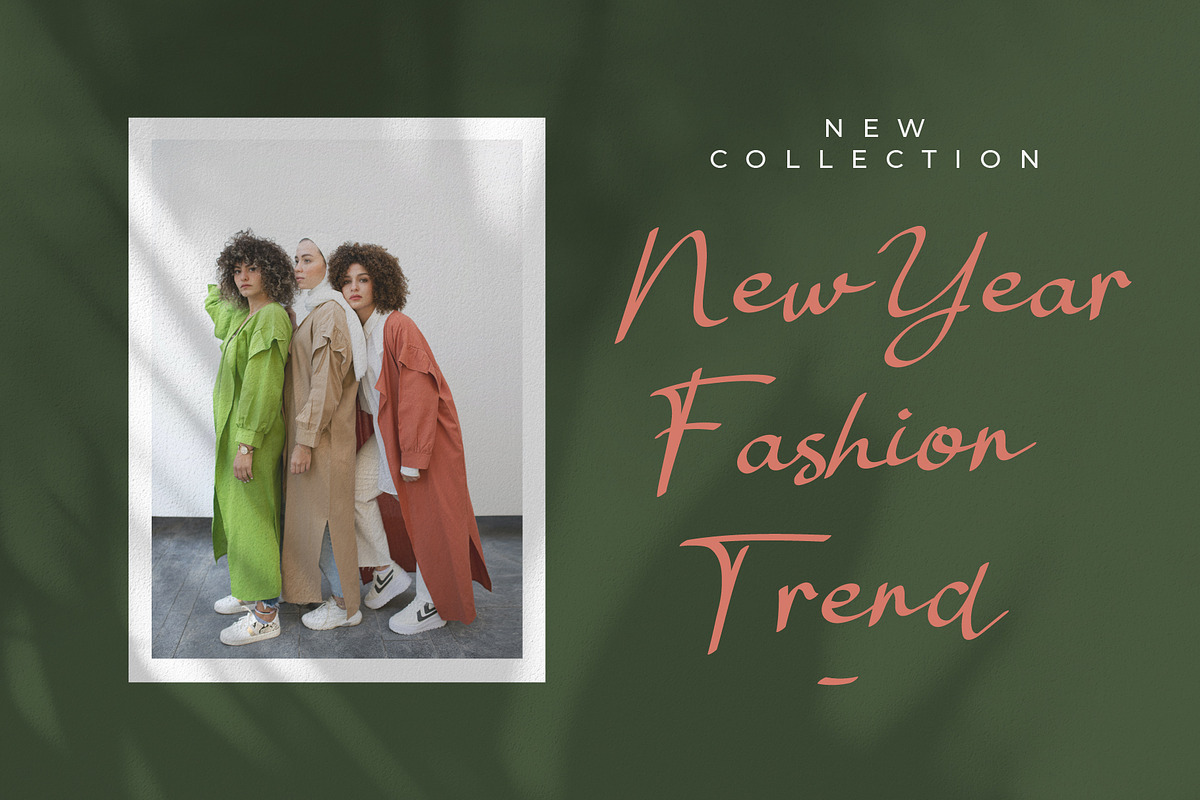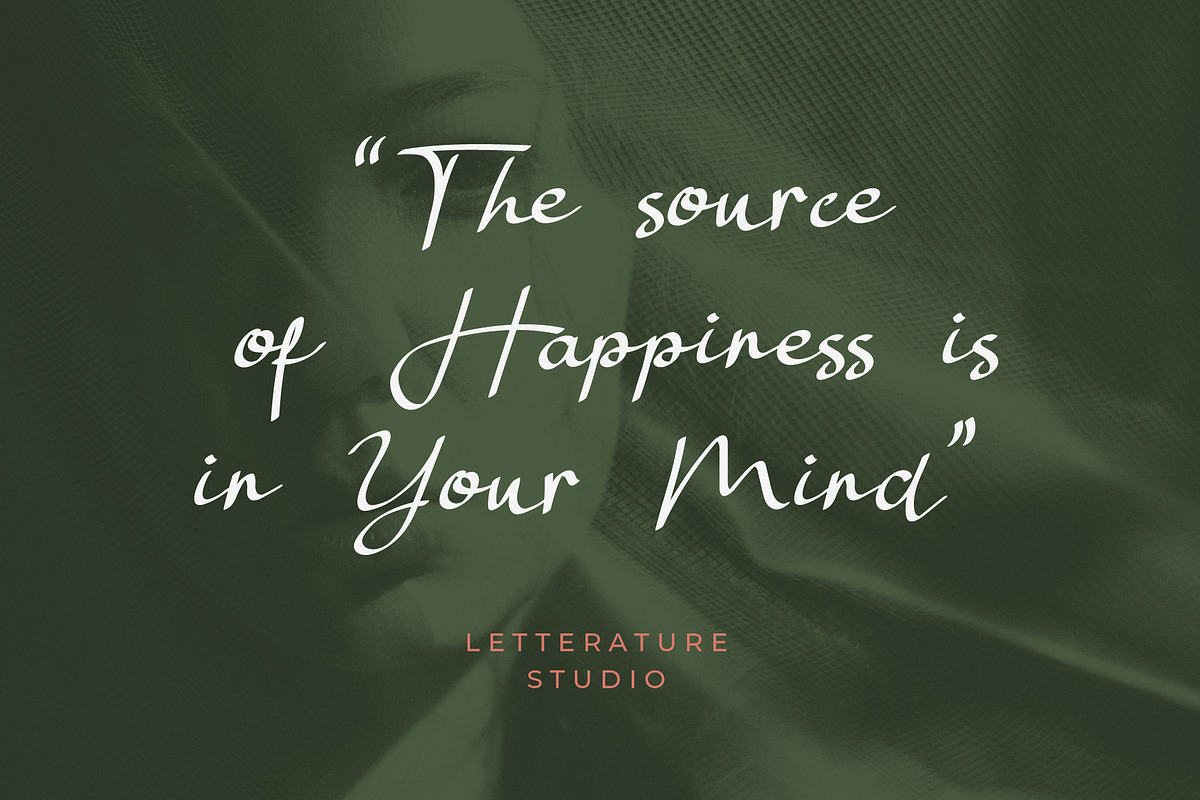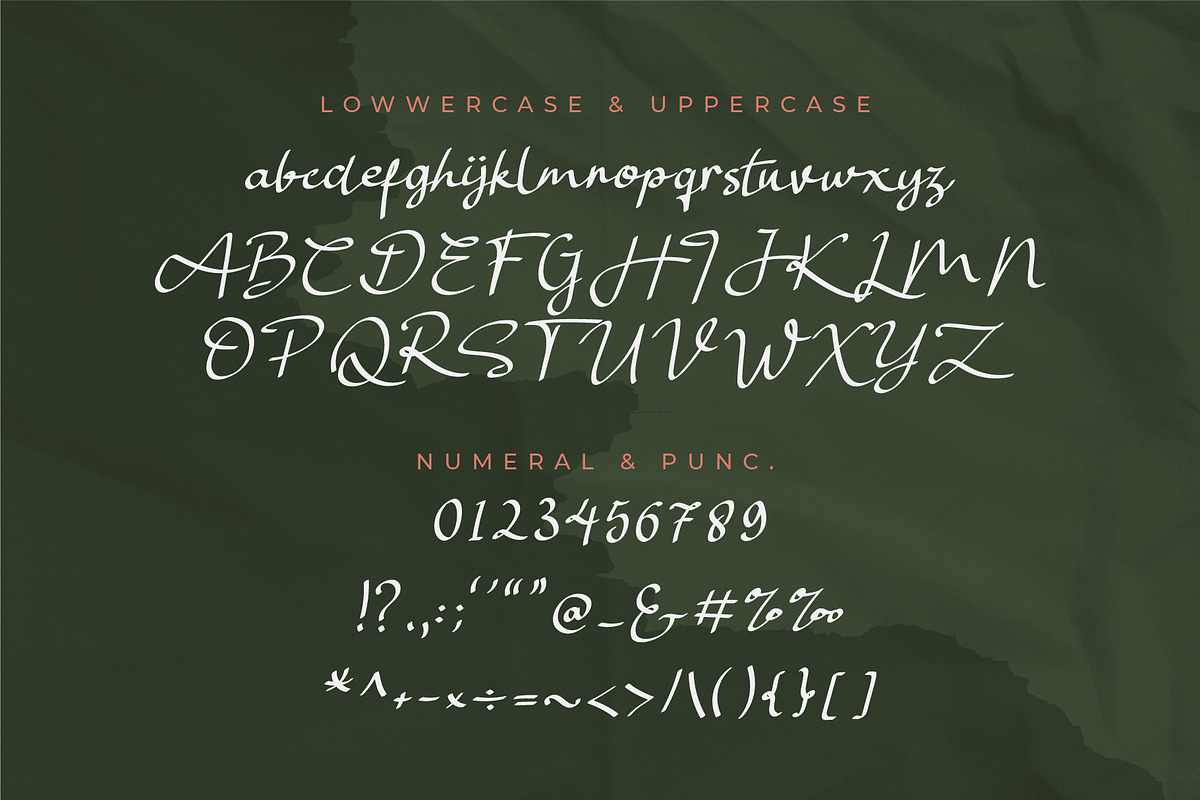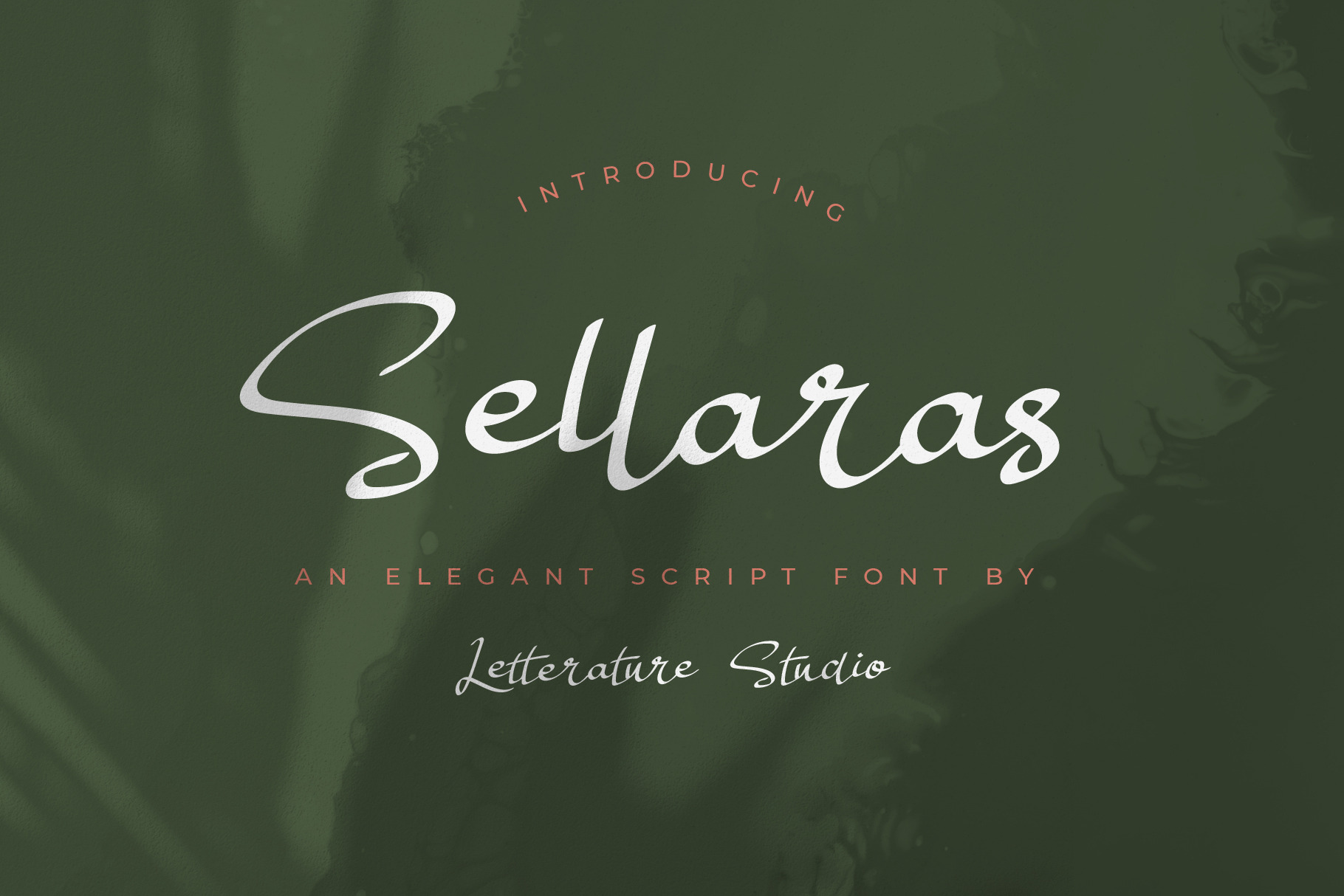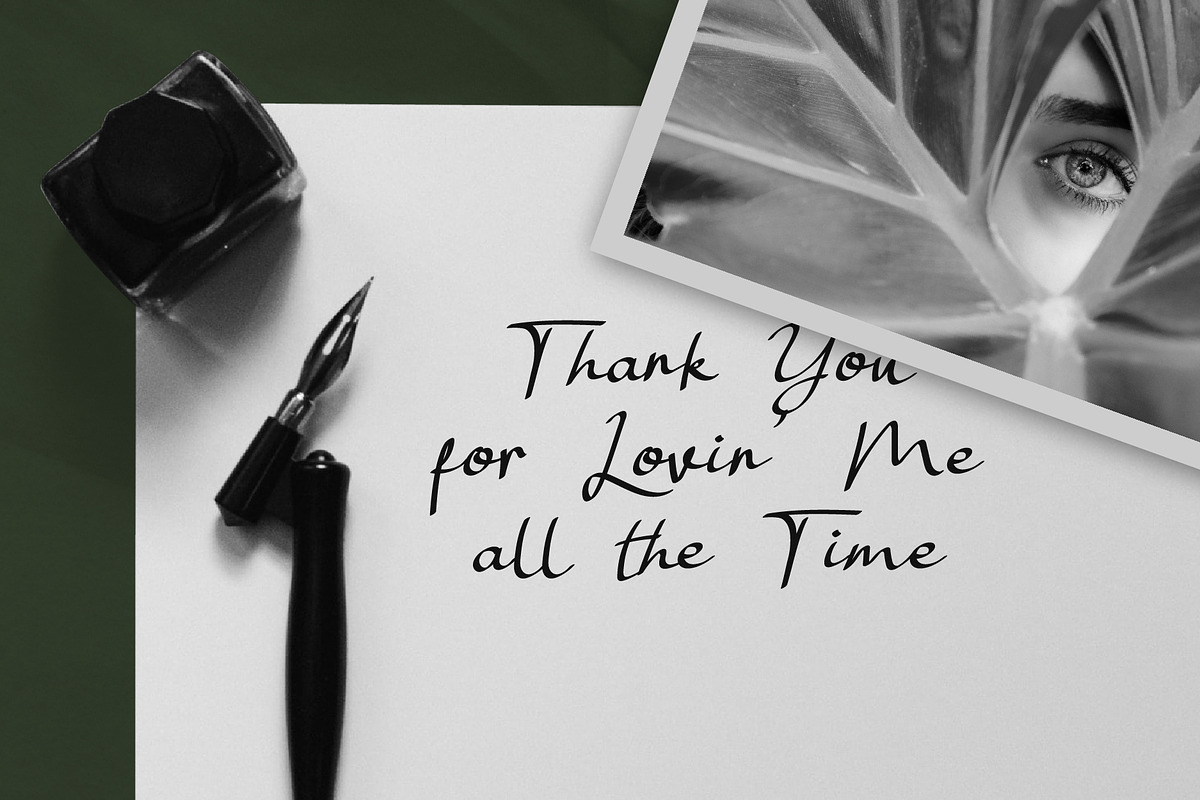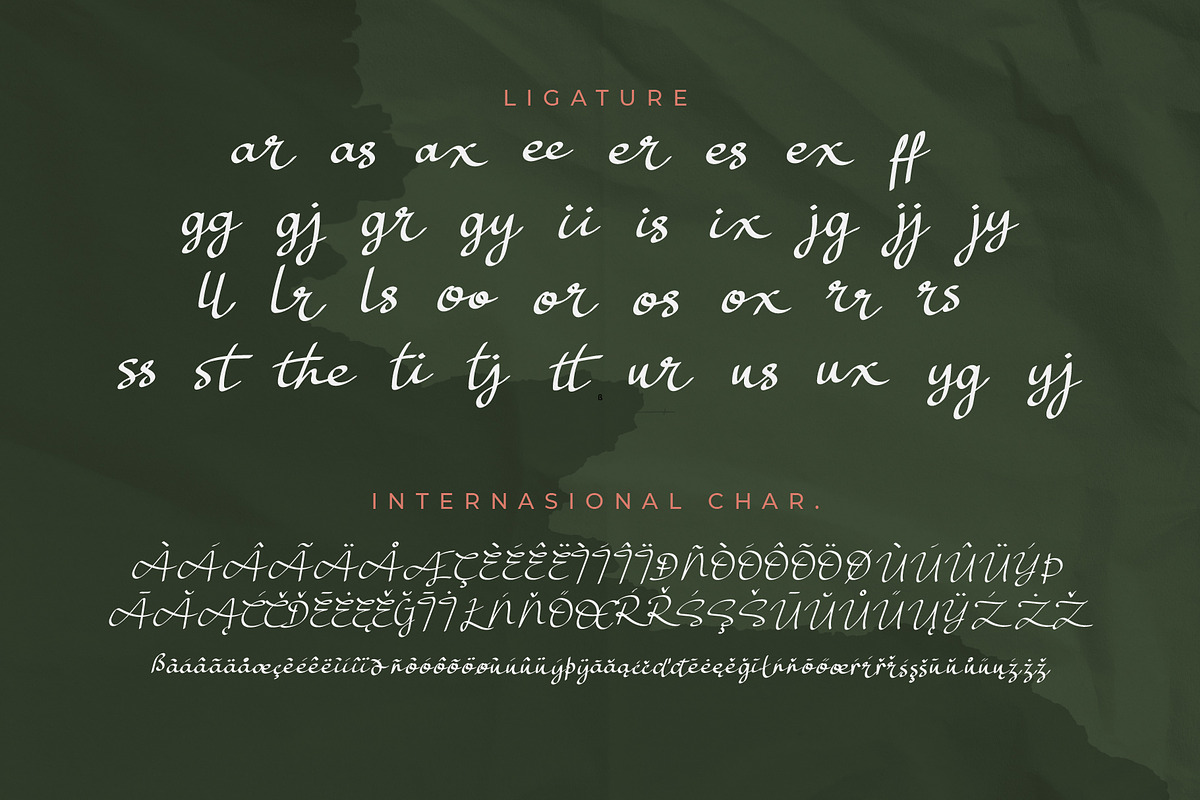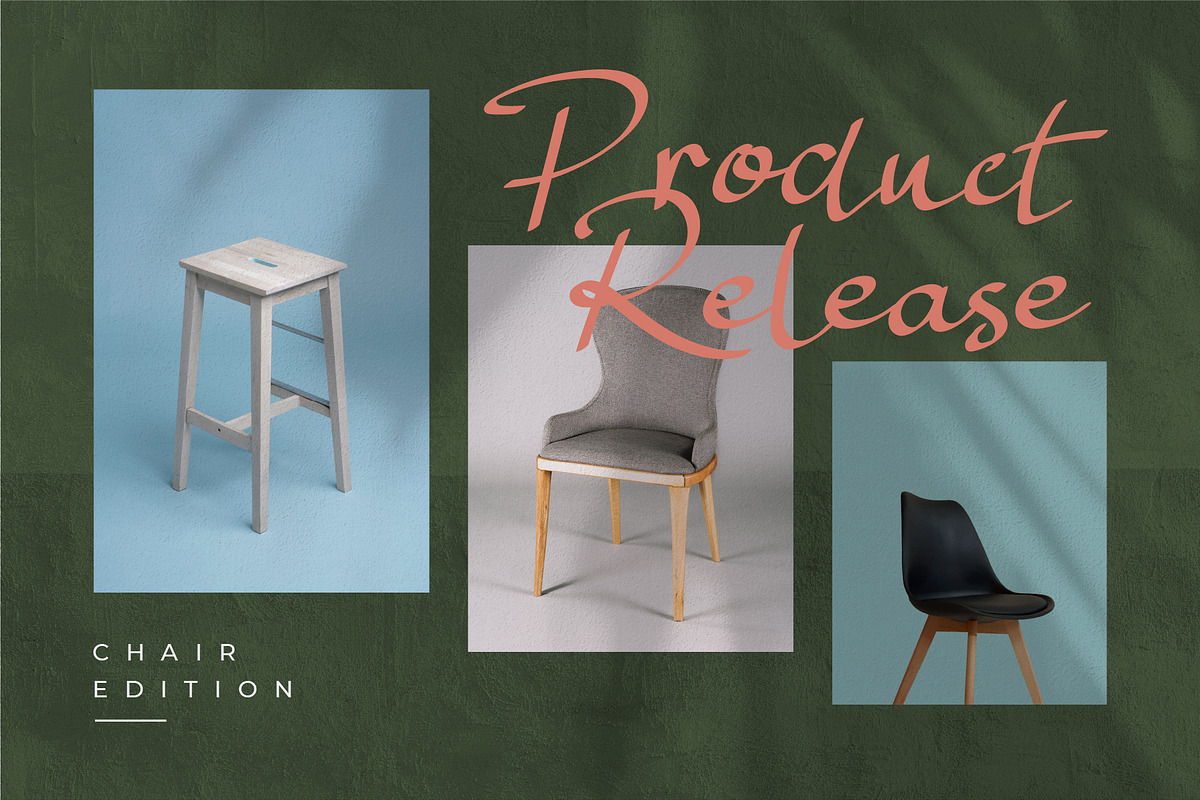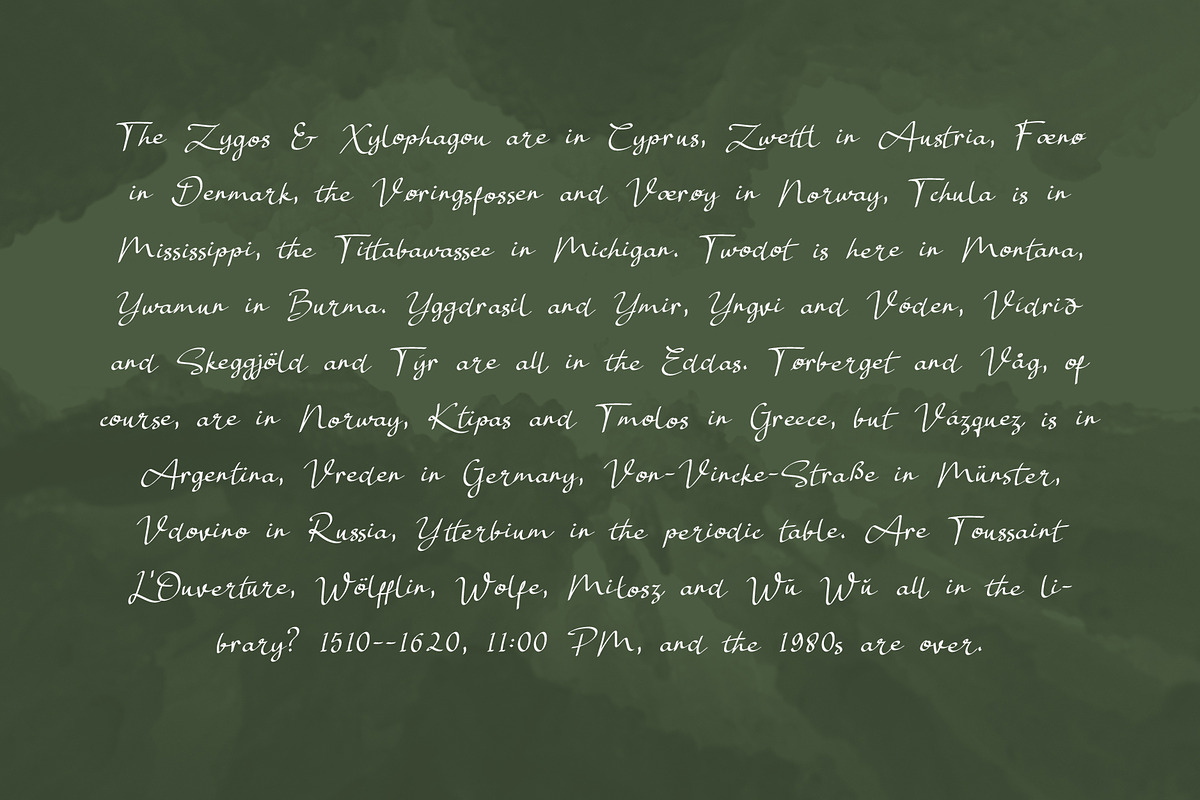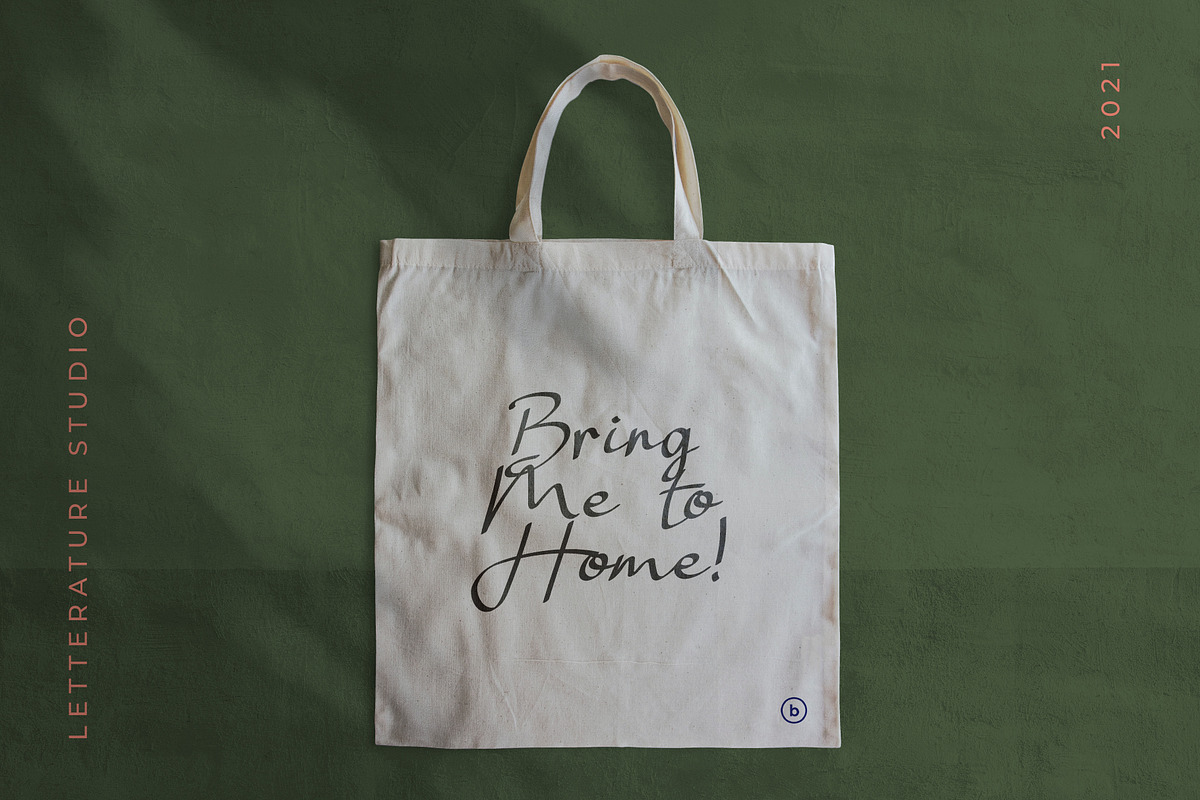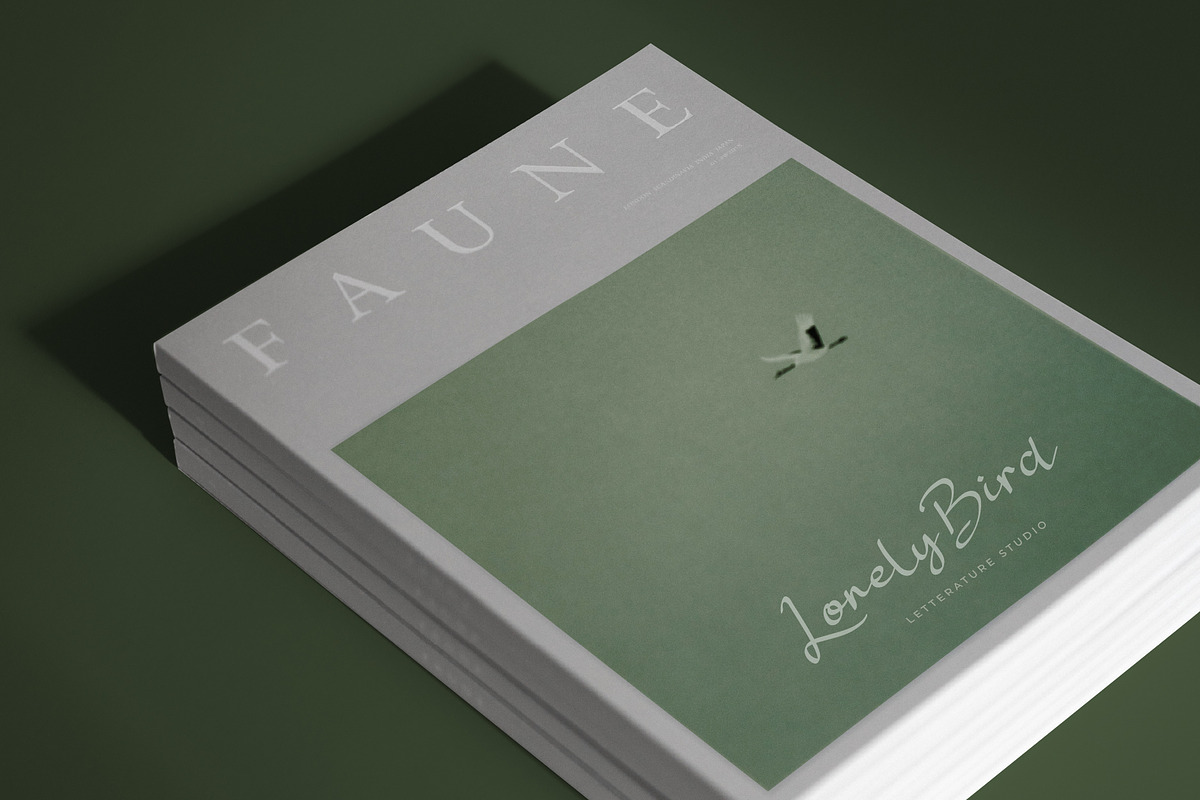
Sellaras // Elegant Script Font
Sellaras is script font that perfectly suited to typography quotes, magazine or book cover, website header, flyer, clothing, branding, packaging design and more.
- Uppercase Characters
- Lowercase Characters
- Alternative Characters (alternate glyphs)
- Multilingual Support Characters